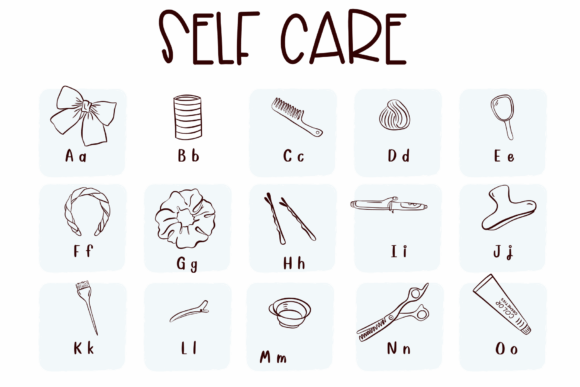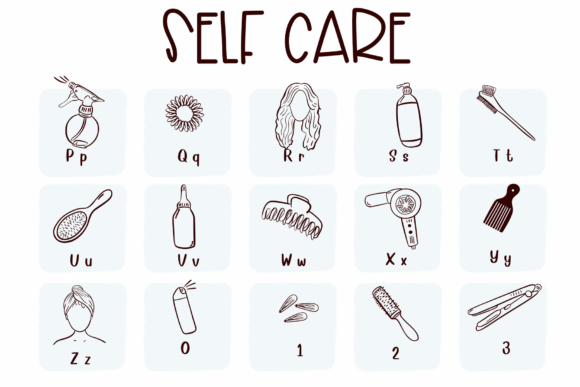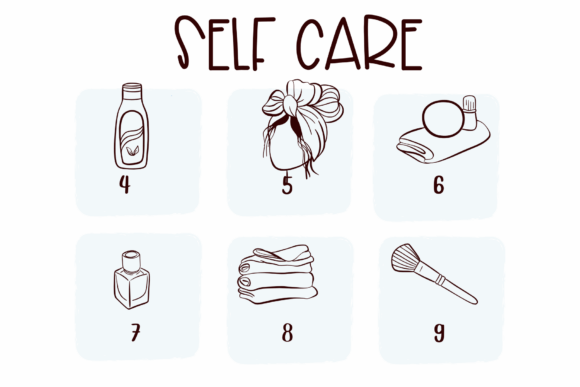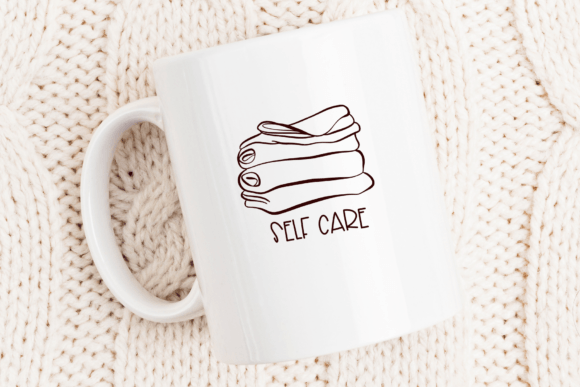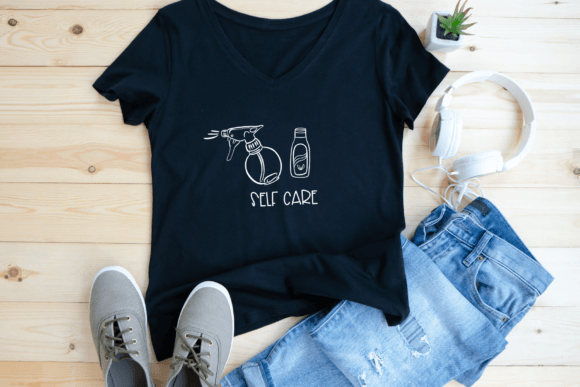
Introduction to Self Care Font
Have you ever found yourself surrounded by paper, glue, and glitter, with a blank piece of cardstock staring back at you? The pressure to create the perfect wedding invitation or DIY project can be overwhelming, but what if you had the right tools to bring your vision to life?
Enter the Self Care Font, a stunning dingbats font with a sketched style that’s perfect for adding a touch of whimsy to your creative projects. With its high-quality design and transparent background, this font is a valuable resource for designers looking to elevate their work. Whether you’re working on a logo, decoration, or craft project, the Self Care Font is a must-have design resource that’s sure to inspire.
Key Features of Self Care Font
- High-quality typography with a soothing and calming aesthetic, perfect for a creative project focused on mental wellness.
- Available in a transparent background option, allowing for seamless integration into various design elements.
- Designed with a clean and minimalist approach, ideal for digital and print media applications.
- Features a large character set, including uppercase and lowercase letters, numbers, and punctuation marks, ensuring versatility in creative projects.
Honest Review: Self Care Font
I recently had the opportunity to work with the Self Care Font, and I must say it’s a high-quality design resource that can elevate any creative project. The font’s clean and minimalist aesthetic makes it perfect for a wide range of applications, from branding to digital design.
- ✨ The font’s transparent background allows for seamless integration with various design elements.
- ✨ The high-quality design ensures that the font looks great at any size, making it perfect for both digital and print applications.
- ⚠️ The font may not be suitable for projects that require a bold, eye-catching font due to its minimalist design.
- ⚠️ Some users may find the font too simple or lacking in character, which can be a limitation in certain creative projects.
Overall, I’m impressed with the Self Care Font and its potential to enhance any design project. While it may not be the best fit for every project, it’s a valuable addition to any designer’s toolkit. If you’re looking for a high-quality, versatile font, the Self Care Font is definitely worth checking out.
Tips for Getting the Most Out of Self Care Font
For optimal results, use Self Care Font on a transparent background to create a clean and minimalist design. You can also experiment with different font sizes and styles to add visual interest to your project.
Self Care Font is a versatile design resource that can be used in a variety of creative projects, including self-care inspired designs, wellness-themed presentations, and inspirational quotes. With its high-quality and transparent background, this font is perfect for adding a touch of elegance to your design.